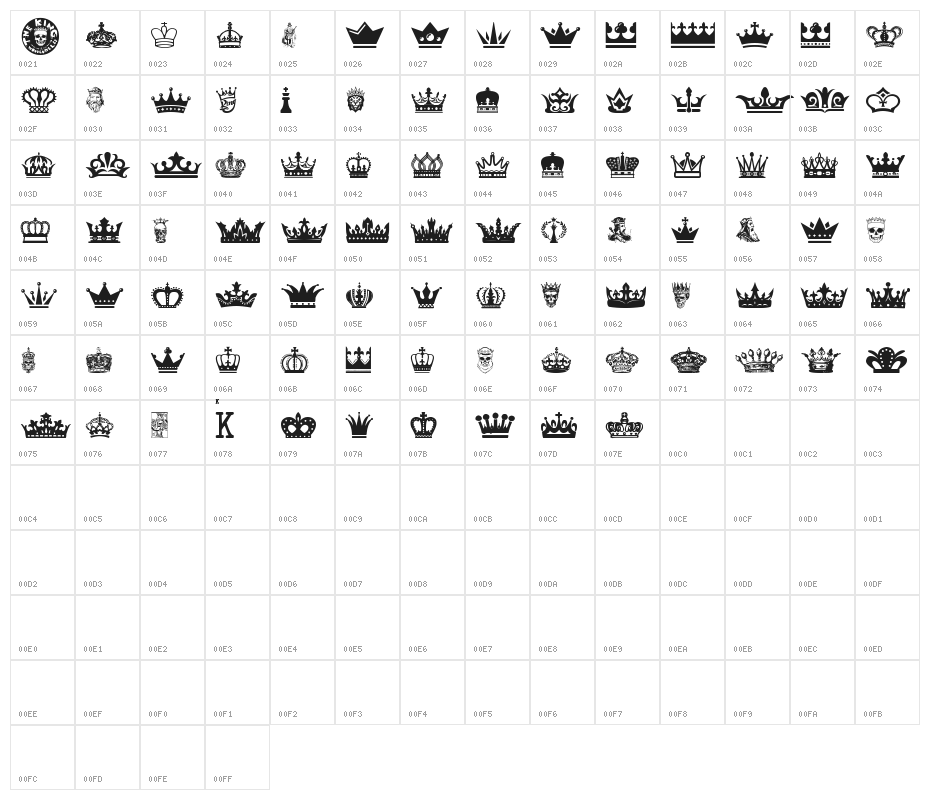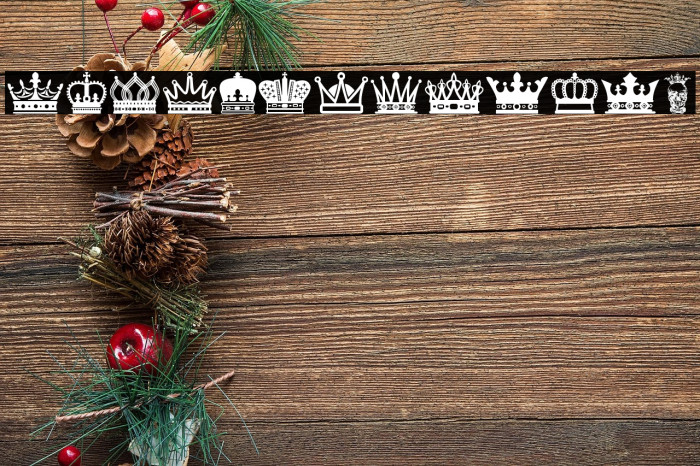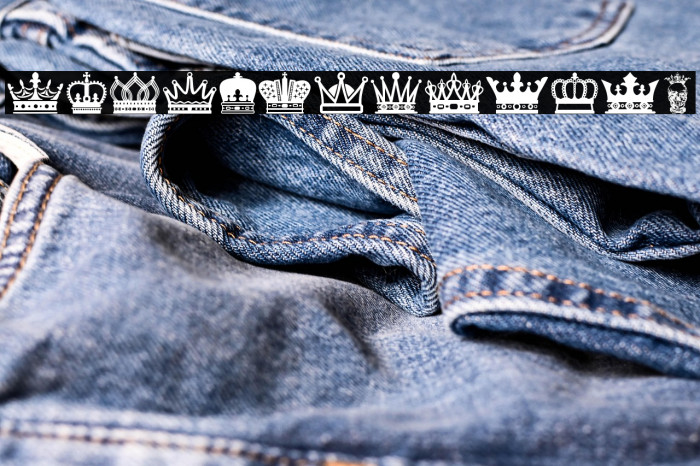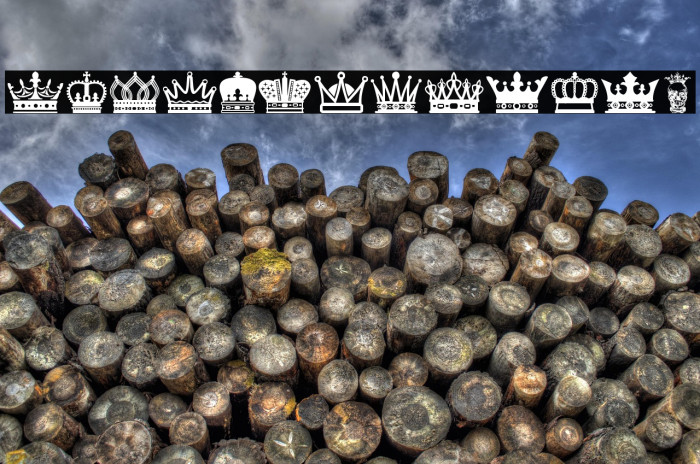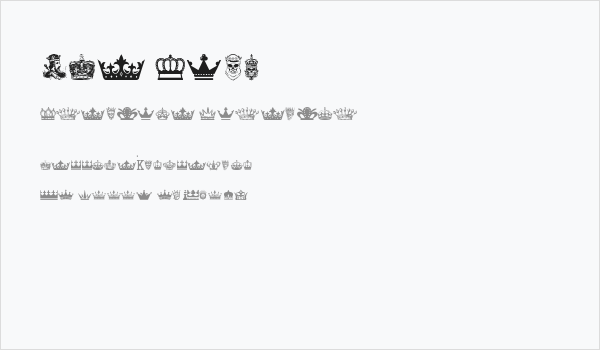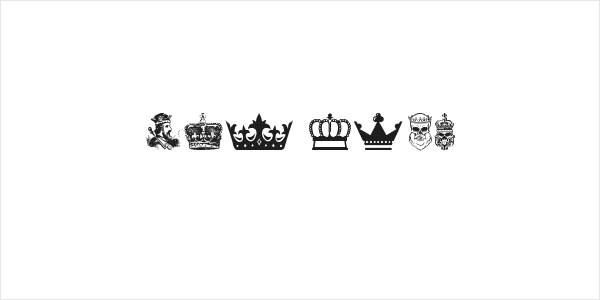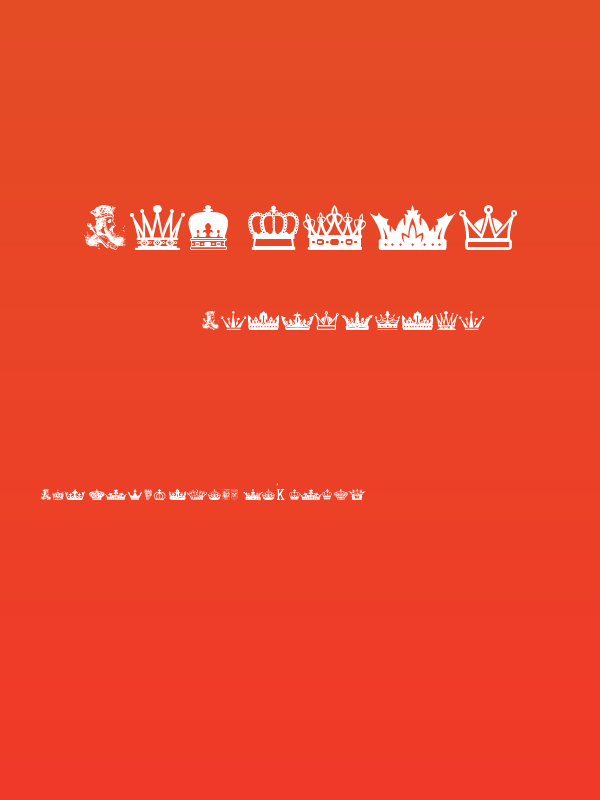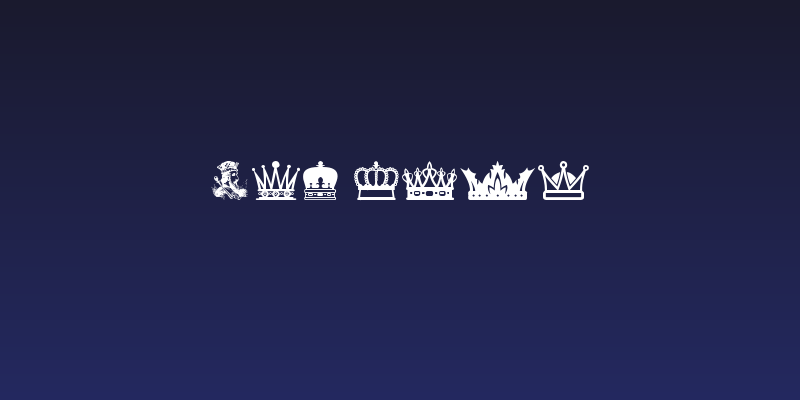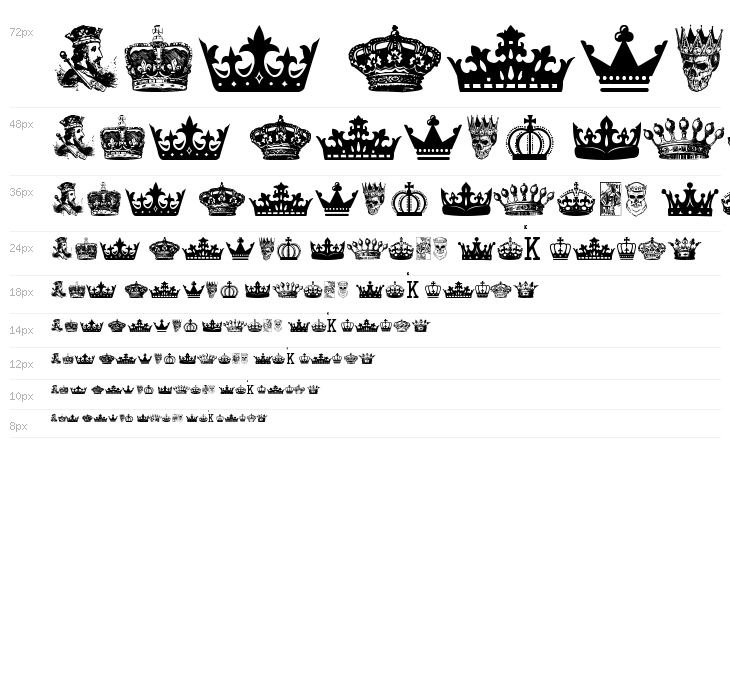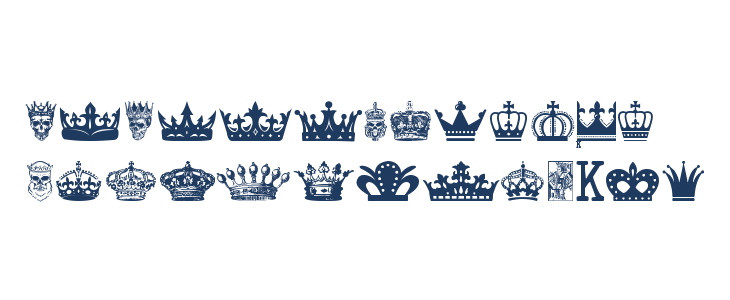
The King Font
The King Description
A decorative display font featuring a wide variety of crown and royal-themed glyphs, including detailed illustrations of crowns, king faces, chess pieces, and ornamental elements. The glyphs are bold, highly stylized, and primarily black silhouettes with some intricate linework and shading.
| Overall Style | Decorative, Royal, Thematic |
| Use Case | Logos, Headlines, Posters, Themed Graphics |
| Proposed Projects | Branding for luxury products, event invitations, themed party materials, logo design, posters, and decorative headings. |